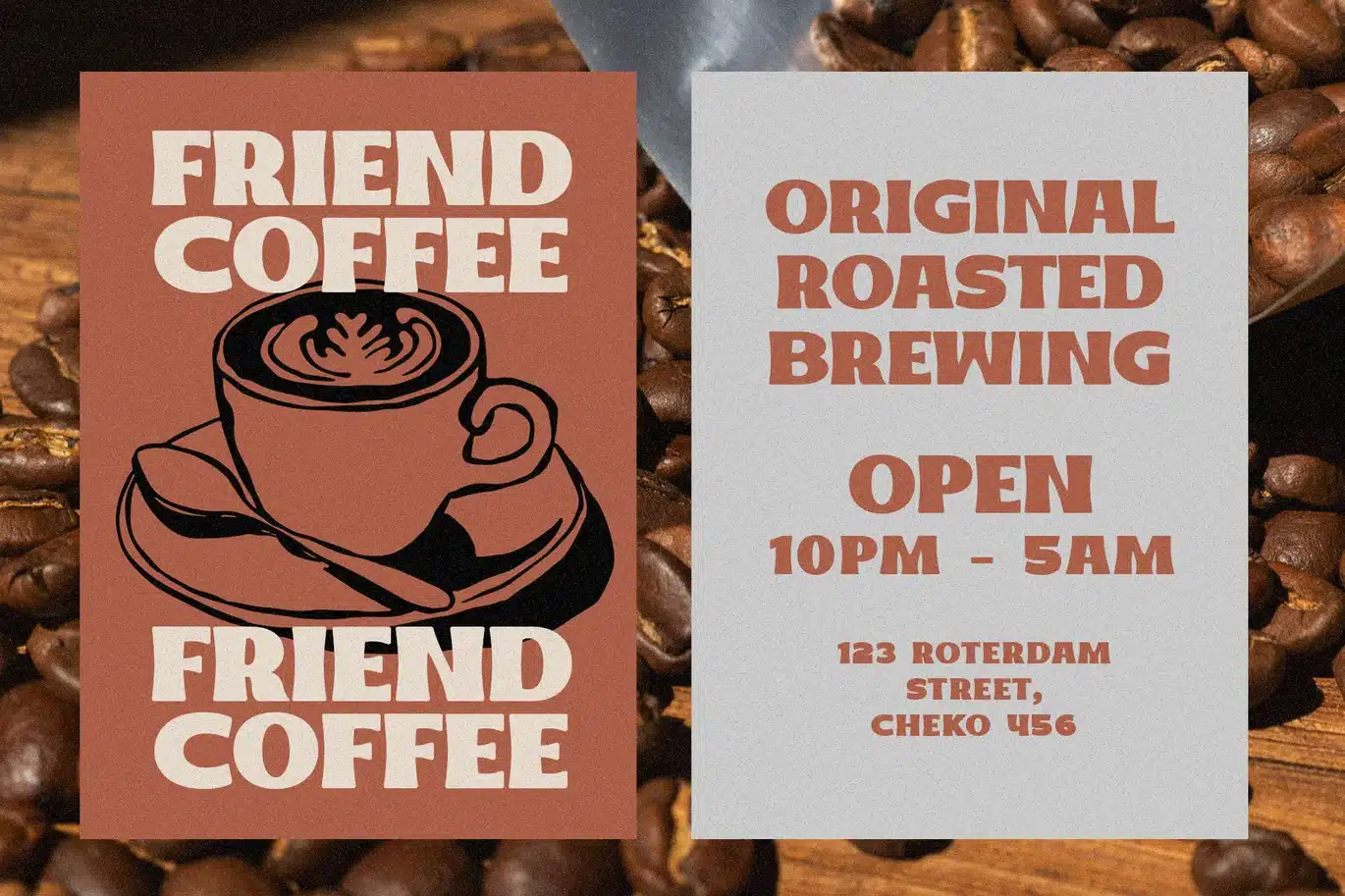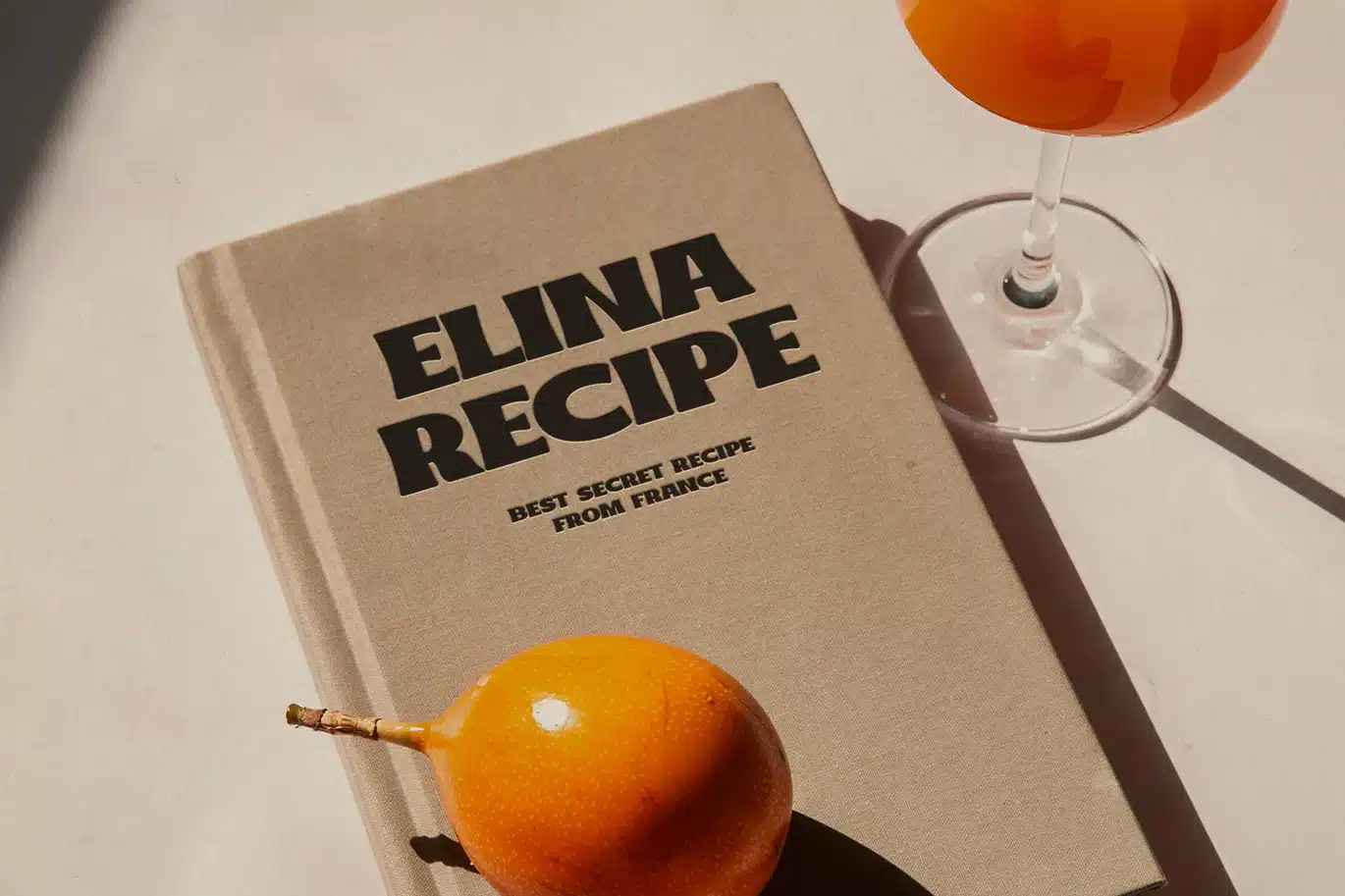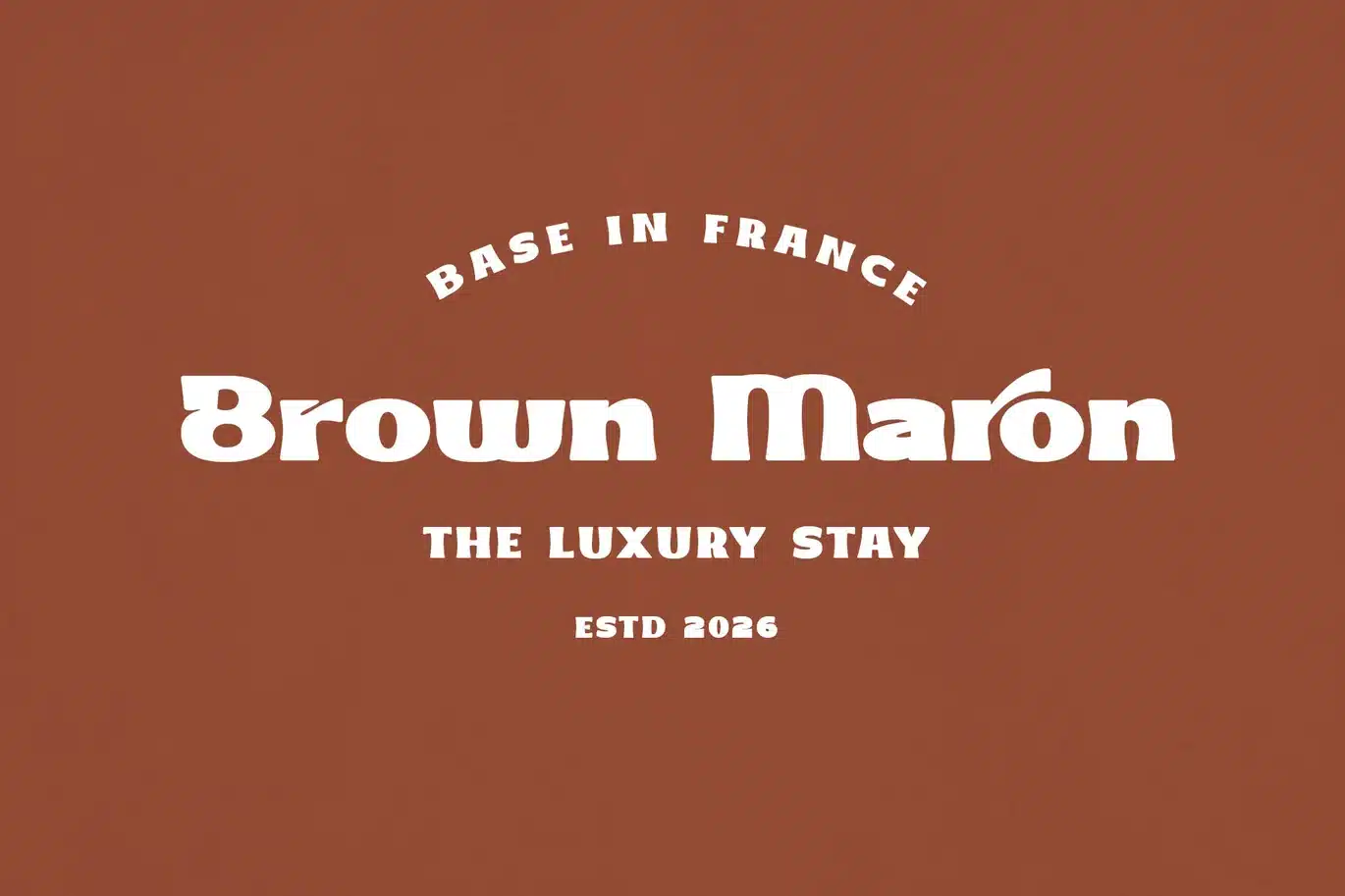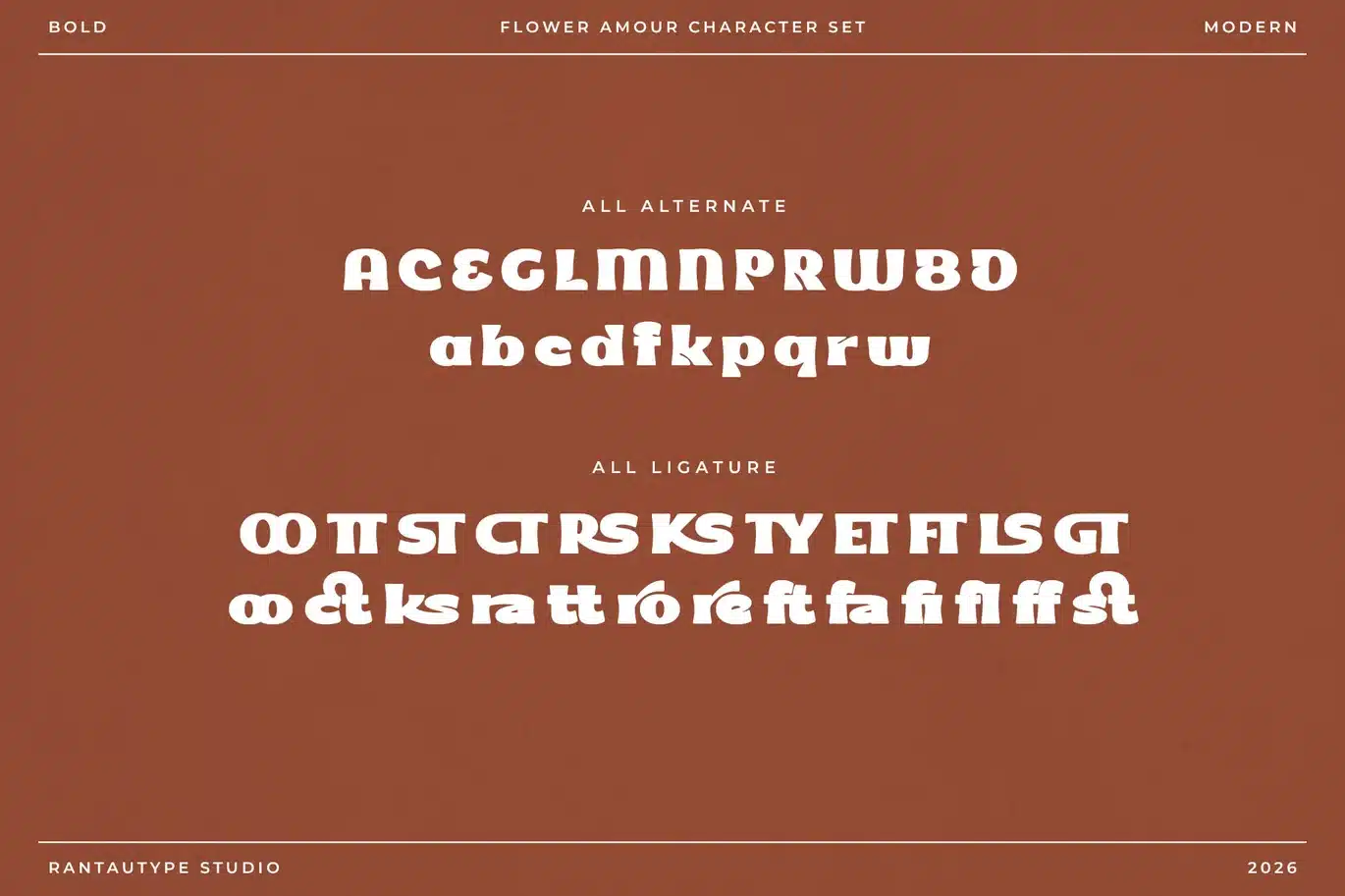
Flower Amour Modern Bold Serif Font
Flower Amour is a bold modern font with a vintage look captures the perfect balance between past and present, blending nostalgic charm with contemporary confidence. Designed to stand out, this style features strong, well-defined letterforms paired with subtle retro influences that evoke a sense of timeless character.
Flower Amour is a perfectly choice for any creative endeavor, creating, modern, lifestyle design such as logotype, title, cover, branding, invitations, wedding designs, display and magazine, social media posts, advertisements, printed quotes, product packaging, corporate brand, product designs, labels, photography, watermarks, special events and any other project with modern touch.
- Alternate and Ligature